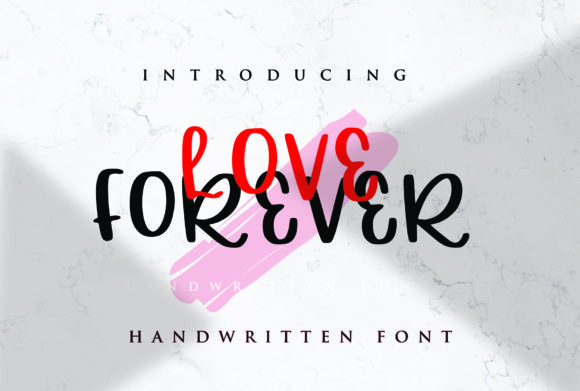
Indulge in the charm of Love Forever, a captivating script font that transports you to a realm of love and enchantment. Inspired by the delicate intricacies of handwritten love letters, this font exudes a touch of romance and whimsy that will elevate your designs to new heights.
With its graceful curves and charming strokes, Love Forever invites you to create eye-catching magazine adverts that will leave a lasting impression. Its versatility extends beyond the realm of advertising, making it an ideal choice for wedding invitations, greeting cards, and any project that calls for a touch of heartfelt elegance.
Whether you seek to convey the depth of your emotions in a love letter or spread joy through vibrant designs, Love Forever is your perfect companion. Its captivating nature will draw your audience in, creating an unforgettable sensory experience that will leave them yearning for more.